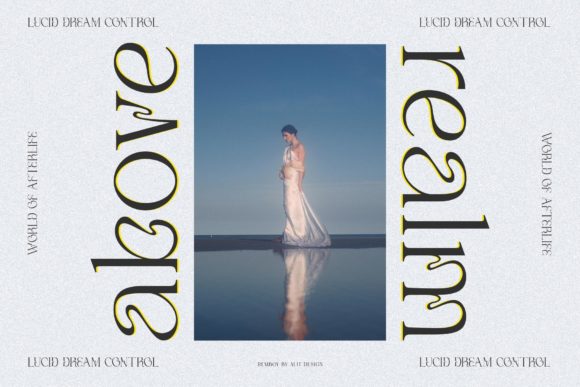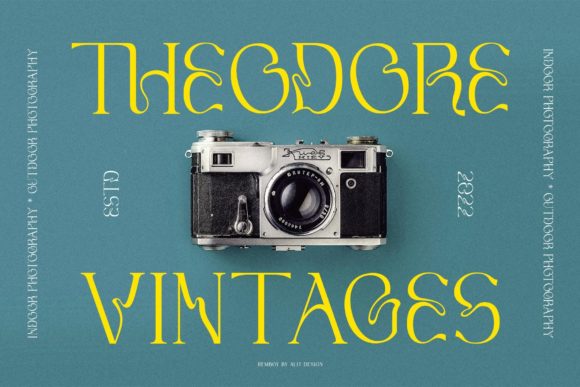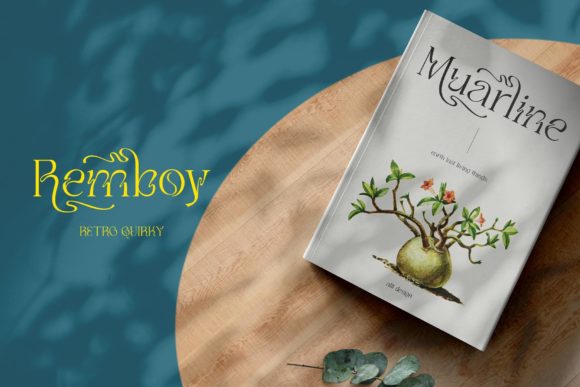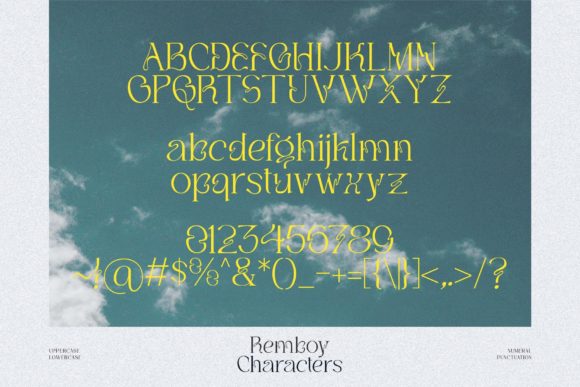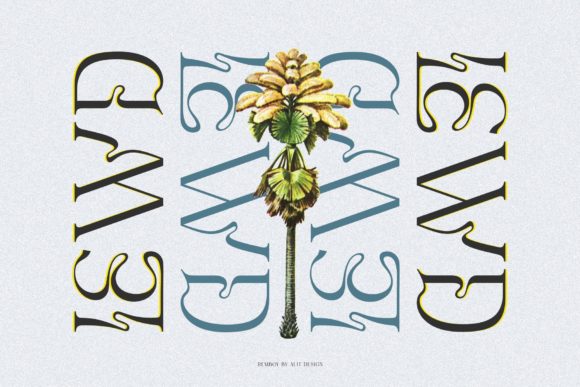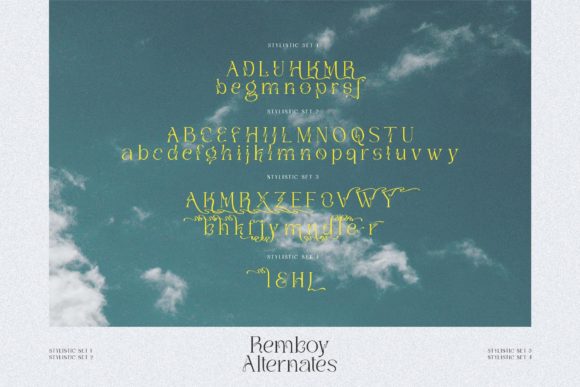
Introduction to Remboy Font
As a designer, have you ever found yourself staring at a blank canvas, waiting for that perfect font to bring your creative project to life? I know I have. It’s in those moments that we’re reminded of the importance of having a reliable design resource at our fingertips.
That’s why I’m excited to introduce you to the Remboy Font – a cool, stylish, and slim lettered serif font that’s sure to elevate your designs. With its high quality and versatility, Remboy Font is the perfect addition to any creative project. Plus, with its transparent background, you can easily customize it to fit your unique vision.
- Unique, handcrafted design elements that can add a personal touch to your creative project.
Honest Review: Remboy Font
As a designer, I’m always on the lookout for high-quality design resources to elevate my creative projects. The Remboy Font has caught my attention, and I’m excited to share my honest review with you.
- ✨ Unique and playful design style that adds a touch of whimsy to any project
- ✨ Highly legible and clear, making it perfect for body text and headings
- ✨ Offers a transparent background, making it easy to use on both light and dark backgrounds
- ⚠️ Limited character set, which may not be ideal for complex or long-form content
- ⚠️ May not be suitable for formal or professional projects due to its playful nature
Overall, I’m impressed with the Remboy Font’s high quality and versatility. It’s a great addition to any designer’s toolkit, and I’d highly recommend it for creative projects where a playful touch is desired.
Tips for Getting the Most Out of Remboy Font
To get the most out of the Remboy Font, use it in combination with other design resources, such as images and graphics. Experiment with different font sizes, colors, and settings to achieve the desired look and feel for your project. You can also use the font in conjunction with other design software to create unique and creative projects.
The Remboy Font is perfect for a variety of creative projects, including social media graphics, presentations, marketing materials, and documents. It’s also a great design resource for professionals who need a high-quality font for their projects. With its transparent background feature and high-quality design, the Remboy Font is a must-have for any designer or creative professional.
Q: Does the Remboy Font have a transparent background?
Yes, the Remboy Font has a transparent background, making it easy to use in creative projects that require a subtle design aesthetic. The transparent background also allows you to easily combine the font with other design elements, such as images or textures.